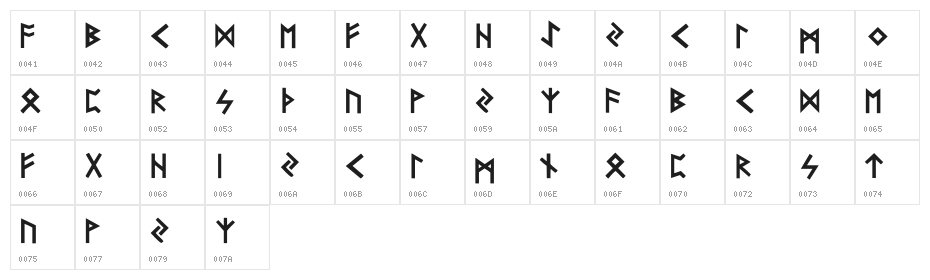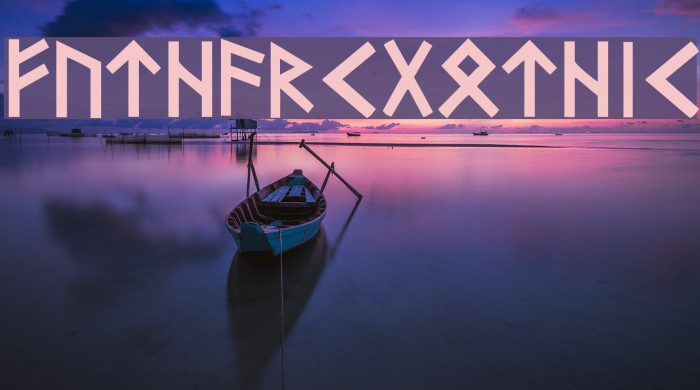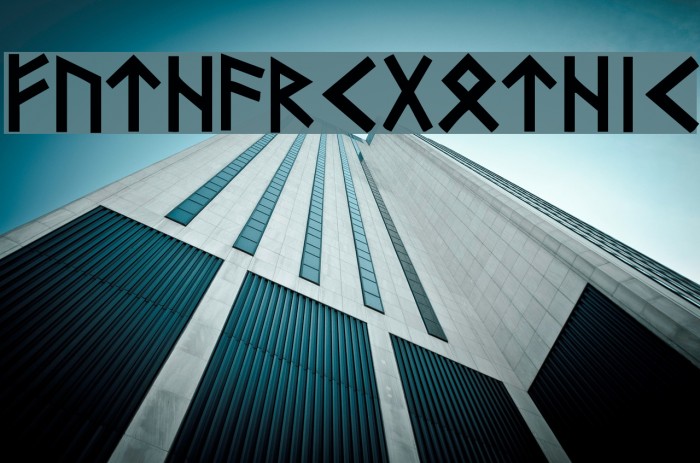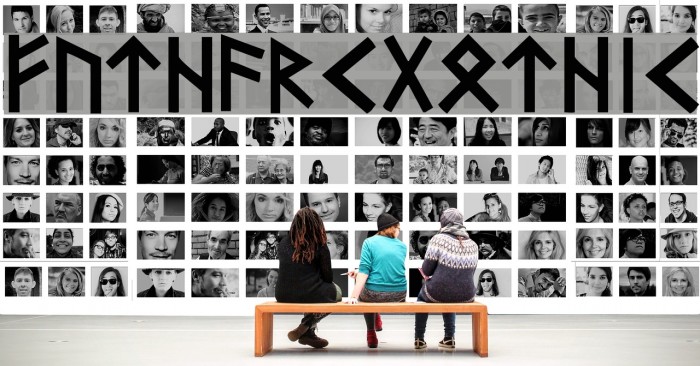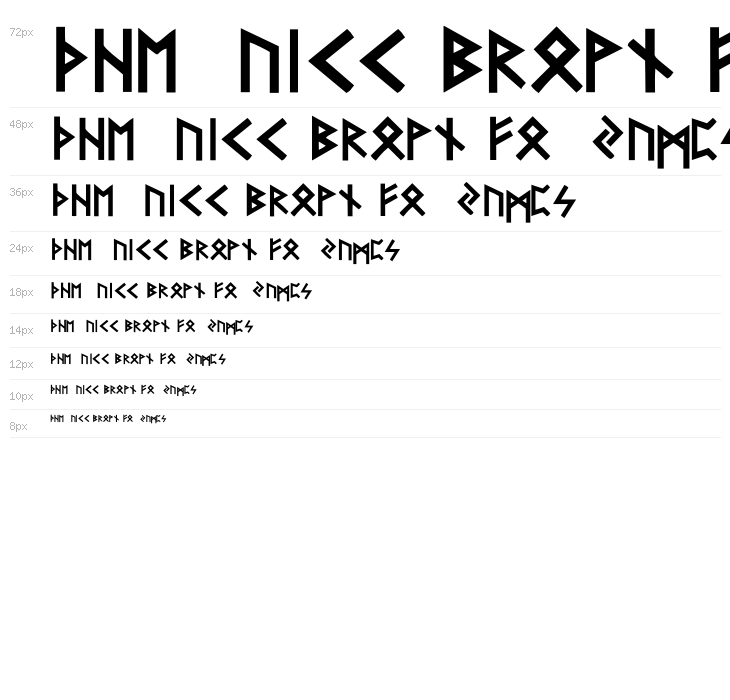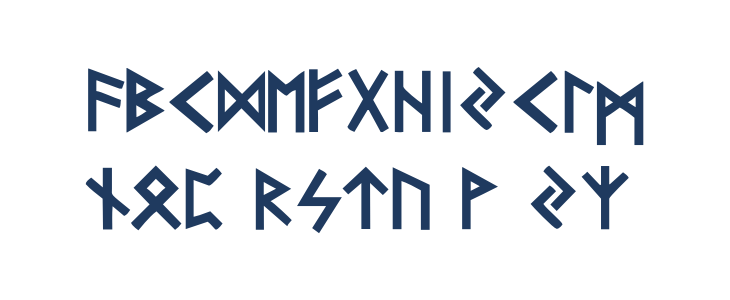
Futhark-Gothic Font
Futhark-Gothic Description
This font is inspired by ancient runic alphabets, featuring angular and geometric shapes that evoke a sense of mystery and antiquity. The characters are bold and striking, with sharp edges and a uniform thickness that gives them a strong presence. Each letter is distinct, yet they all share a cohesive style that makes the font easily recognizable. The overall design is reminiscent of Gothic and medieval scripts, making it ideal for projects that require a historical or fantasy theme. The font's unique appearance makes it suitable for decorative purposes, such as logos, posters, and book covers, where a dramatic and eye-catching look is desired.
| Use Case | Logos, Posters, Book covers |
| Proposed Projects | Ideal for use in fantasy-themed book covers, historical posters, game titles, and logos that require a dramatic and ancient look. |